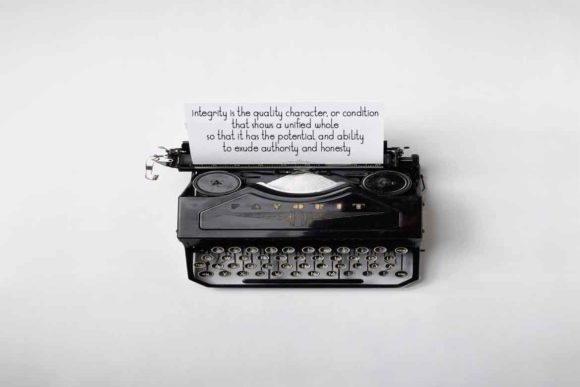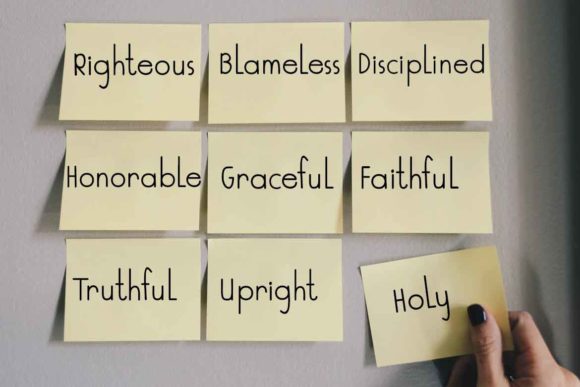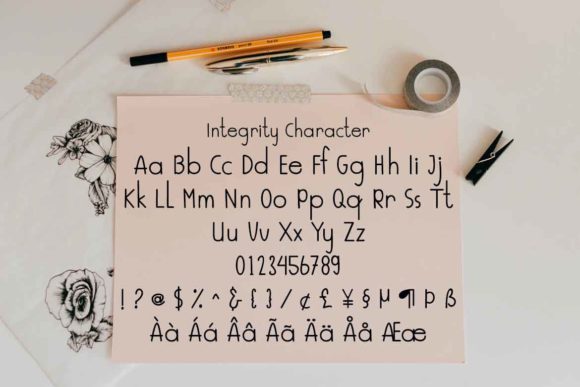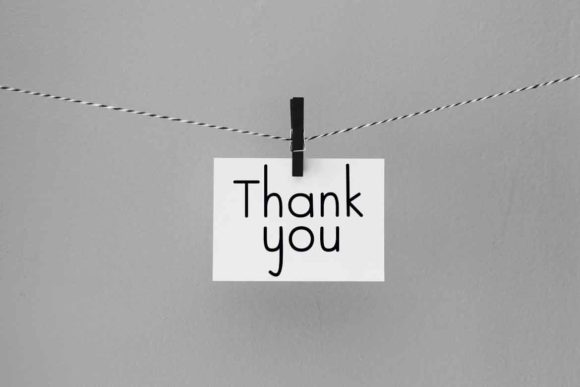
Introduction to Integrity Font
You know that moment when you’re working on a creative project, and you need that one perfect design element to tie everything together? For designers, finding the right font can be the difference between a good design and a great one. And that’s exactly where the Integrity Font comes in – a bright, fresh, and minimal sans serif font that’s sure to elevate your design to the next level.
With its versatility and high quality, the Integrity Font is the perfect design resource for any project. Whether you’re working on a business card, a brochure, or a website, this font is sure to make your design stand out. Plus, it’s available for free download, making it an accessible addition to your design toolkit.
So why is the Integrity Font so valuable for designers? For one, its transparent background makes it easy to use in a variety of design contexts. And with its clean, modern aesthetic, it’s the perfect choice for designers looking to create a professional, high-end look without sacrificing creativity.
Key Features of Integrity Font
- High-quality font with a transparent background, ideal for creative projects requiring a modern and sleek design.
- Integrity Font is designed with precision, featuring a crisp resolution of 300 DPI, ensuring it looks great on both digital and print materials.
- This versatile font is suitable for a wide range of creative projects, from logos and branding to typography-based designs and presentations.
- Integrity Font is available in multiple weights, allowing designers to customize their design resource to fit their specific needs.
- With its clean and professional aesthetic, Integrity Font is a valuable design resource for any creative project requiring a high-quality font.
Honest Review: Integrity Font
As a designer, I’m always on the lookout for high-quality design resources that can elevate my creative projects. The Integrity Font has been on my radar for a while now, and I’ve finally had a chance to put it to the test.
First impressions: the font is clean, modern, and has a professional feel to it. I downloaded it for free, which was a pleasant surprise. The transparent background is a nice touch, making it easy to work with in various design scenarios.
What works well: ✨ The font’s versatility is one of its strongest suits. It’s perfect for headings, body text, and even logos. The weight and spacing options are also well-executed, allowing for a range of styles to suit different creative projects.
Limitations: ⚠️ The font family is relatively small, with only a few styles to choose from. While this isn’t a deal-breaker, it’s something to consider if you’re working on a large-scale design project.
Overall impression: I’m impressed with the Integrity Font. It’s a solid addition to any designer’s toolkit, and its free download makes it an attractive option for those on a budget.
Designers who value high-quality, easy-to-use fonts will appreciate the Integrity Font. It’s a reliable choice for any creative project, from simple graphics to complex branding materials.
- Perfect for headings, body text, and logos
- Well-executed weight and spacing options
Tips for Getting the Most Out of Integrity Font
Use Integrity Font on a transparent background for a clean and modern look. Experiment with different font sizes and styles to add visual interest to your design. Use Integrity Font in combination with other design elements to create a cohesive and engaging design.